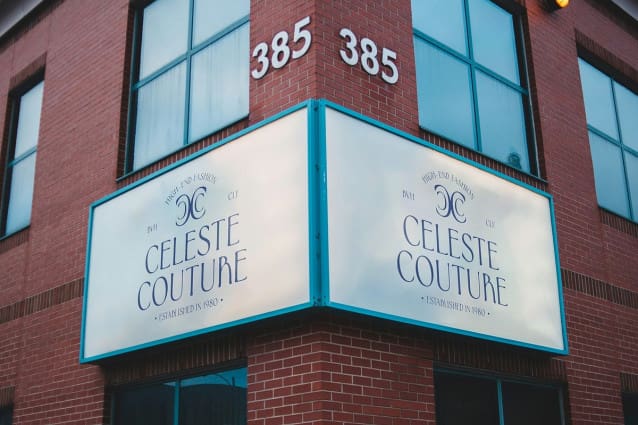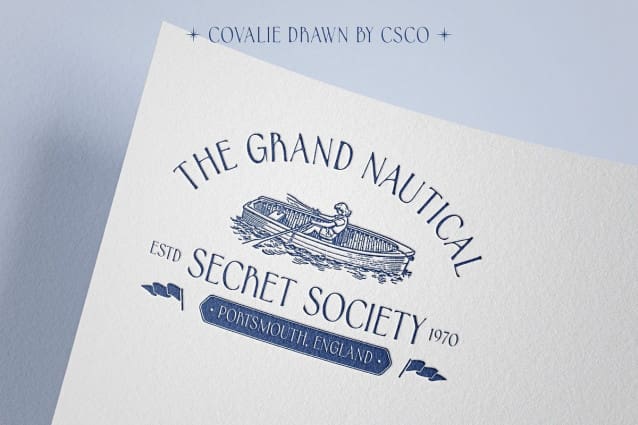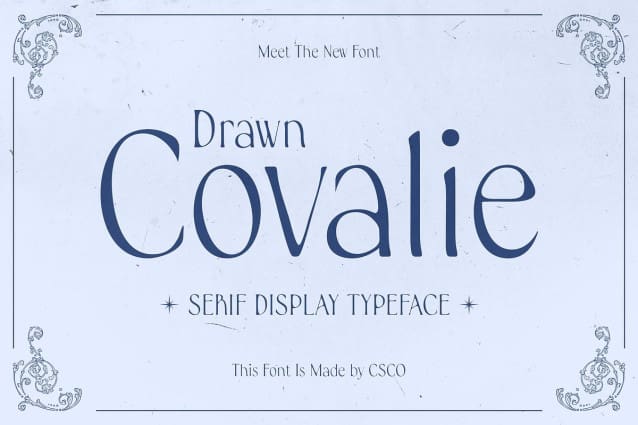
Covalie Drawn Font
Covalie Drawn Font is a modern serif font that showcases a clean design infused with beauty and elegance. Its fine lines intertwine seamlessly with intriguing details, creating a graceful and enchanting impression. The sophisticated aesthetic of Covalie Drawn makes it an excellent choice for projects that demand a touch of refinement and artistic appeal.
Artistic Drawn Effect for Unique Character The applied drawn effect gives Covalie Drawn an artistic, handmade feel, setting it apart from conventional serif fonts. This unique characteristic brings warmth and individuality to each letter, adding a personal touch that resonates with audiences. The carefully crafted design reflects a commitment to quality, making it ideal for high-end branding and creative endeavors.
Versatile for Diverse Applications This font is perfect for a variety of applications, from branding to editorial work, where aesthetics and readability are top priorities. Whether you are designing a luxurious logo, an elegant magazine layout, or sophisticated marketing materials, Covalie Drawn provides the versatility needed to enhance your projects. Its elegant design works harmoniously across various mediums, ensuring a polished and professional appearance.